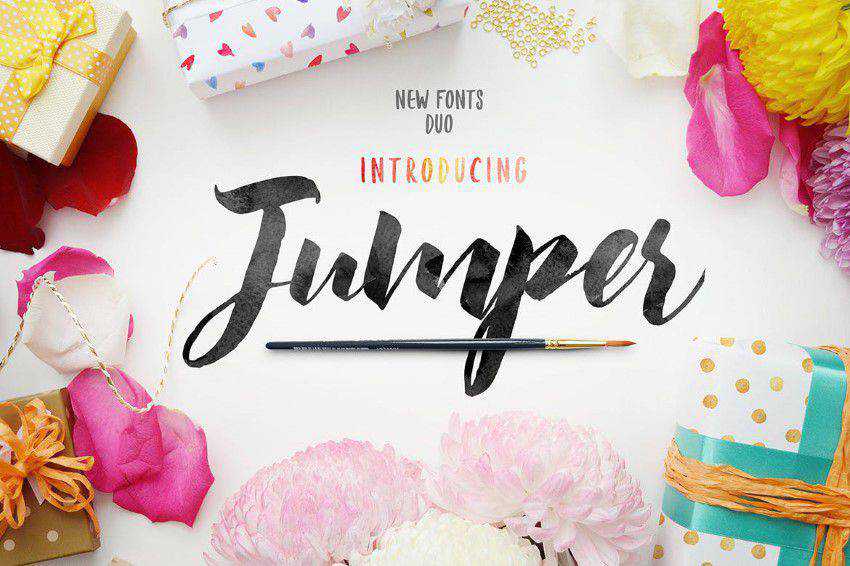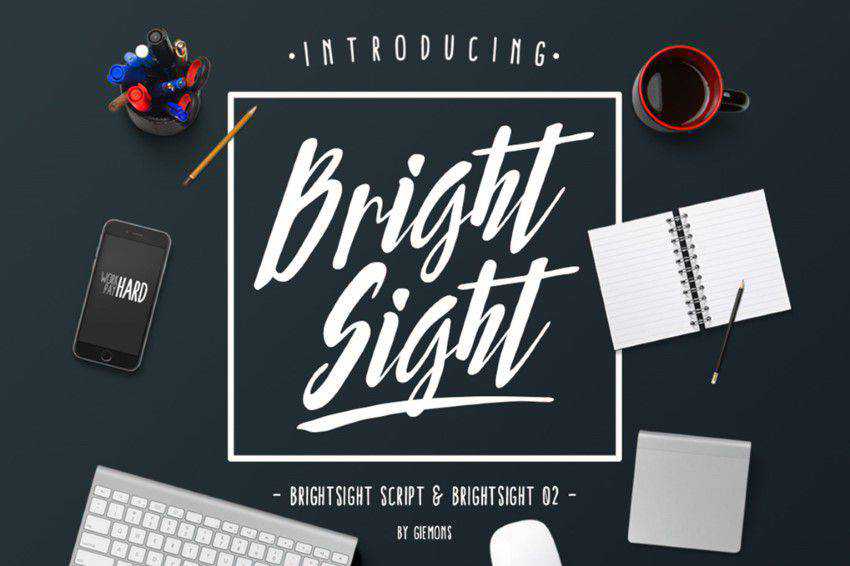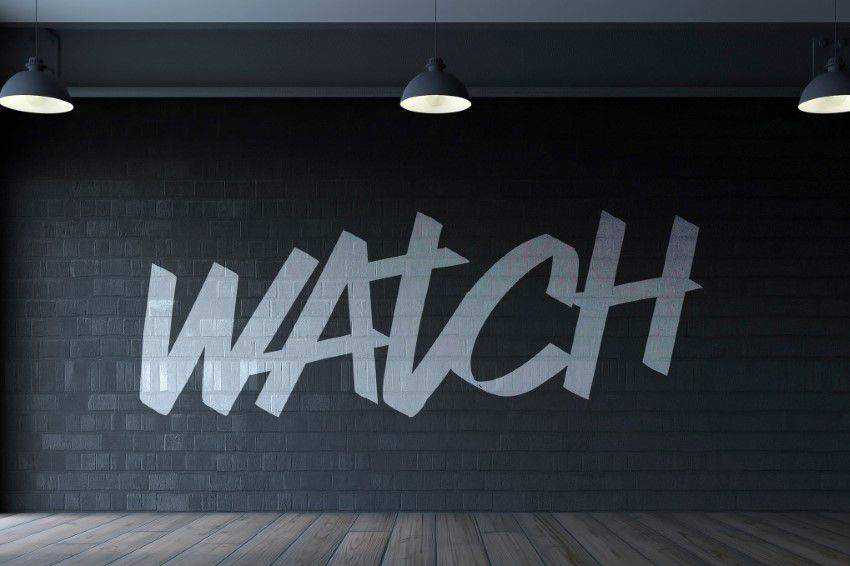
Designers can never have enough fonts in their toolbox, and hand-drawn fonts are the perfect choice if you want to add a little charm and personal touch to your work.
With well-thought-out use of white space, hand-drawn fonts can give your designs some added style and elegance. In this collection, we would like to present twenty of our favorite handwritten fonts. We’re sure you will love them!
Carosello Font (Free)
Jumper Script Fonts (Envato Elements)
Dilem Handwritten Uppercase Display Typeface Free – By Dilem Akiner (TTF)
Bright Sight (Envato Elements)
Handkerchief Font Free – By Joe Chau (TTF)
Watch (Envato Elements)
CABANA Handmade Font Free – By Adrien Coquet (OTF)
Thirsty Dog Handdrawn Typeface Free – By Simon Stratford (OTF)
Monthoers Handmade Letterpress Free – By Agga Swistblnk (TTF)
Arabella Free Font (Free)
Waterlily Free Handwriting Font (Free)
Breathe Font Family (Free)
MAZAK Font
Nickainley Handwriting Font
Cutepunk Typeface Free – Light, Regular & Bold – By Cutepunk (OTF)
Barokah Uppercase & Lowercase Display Free – By Graptail Design (OTF)
El Capitan Hand-Drawn Font Free – By Petr Knoll (OTF & AI)
Sweet Pineapple Hand-Drawn Serif Free – By Medialoot (OTF & Web Font)
Mathlete Hand-Drawn Font Free – Skinny, Slant, Bulky & Bulky Slant – By Mattox (OTF & Web Font)
ALDI Handwritten Sans-Serif Free – Regular & Bold – By Phil Goodwin (OTF)
Handmade Hipster Font Bellaboo Free – By Marcelo Reis Melo (OTF)
Liberal Hand Serif Font Free – Regular & Bold – By Tom Chalky (OTF & TTF)
Barry Font Bold Free – By Eduardo Higareda (OTF & TTF)
Bough Hand-Drawn Typeface Free – By Pavel Korzhenko (OTF)
Fabfelt Handwritten Script Free – Bold – By Despinoy Fabien (OTF & Web Font)
SUNN Uppercase Handwriting Font Free – By Rit Creative